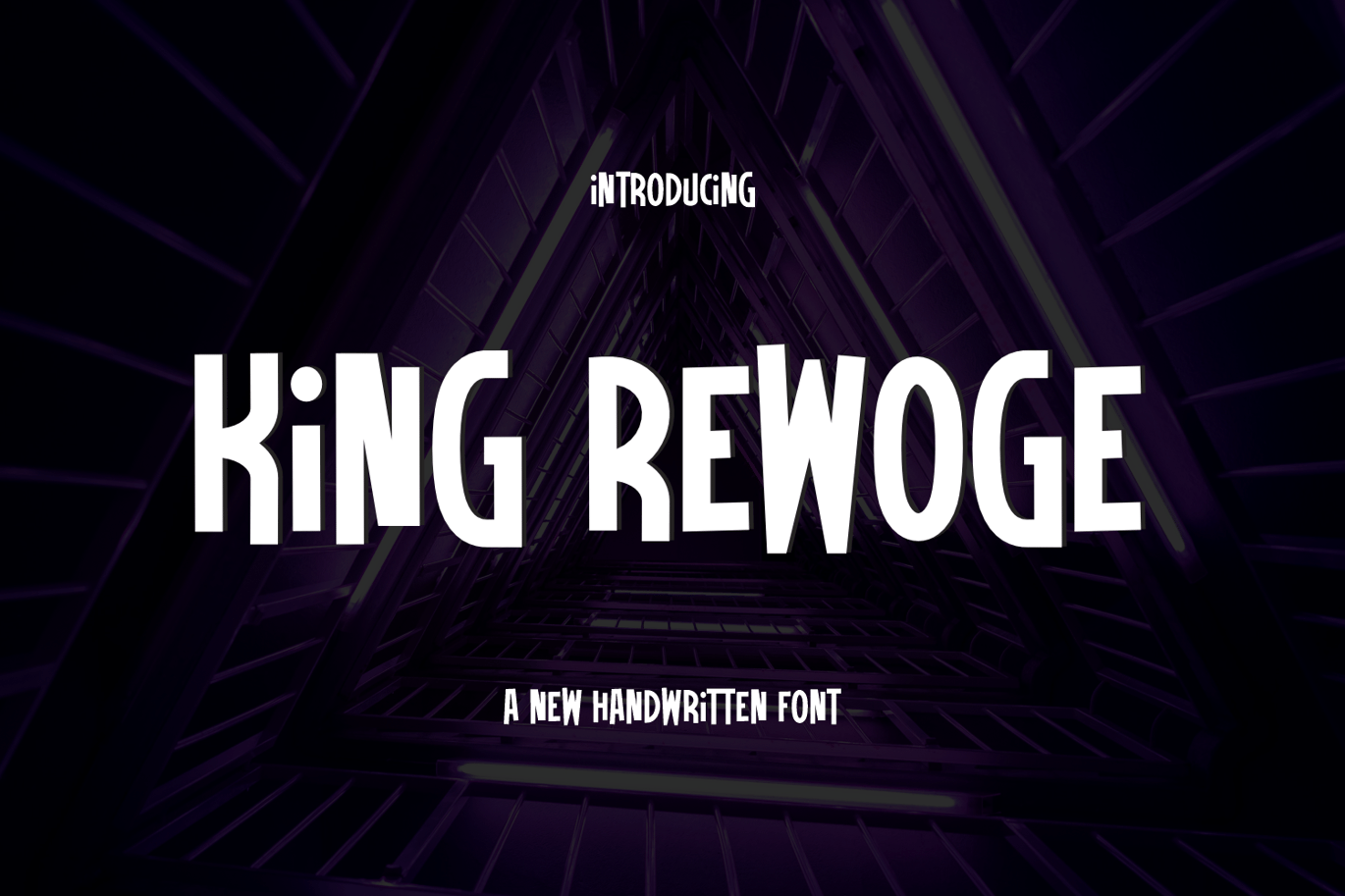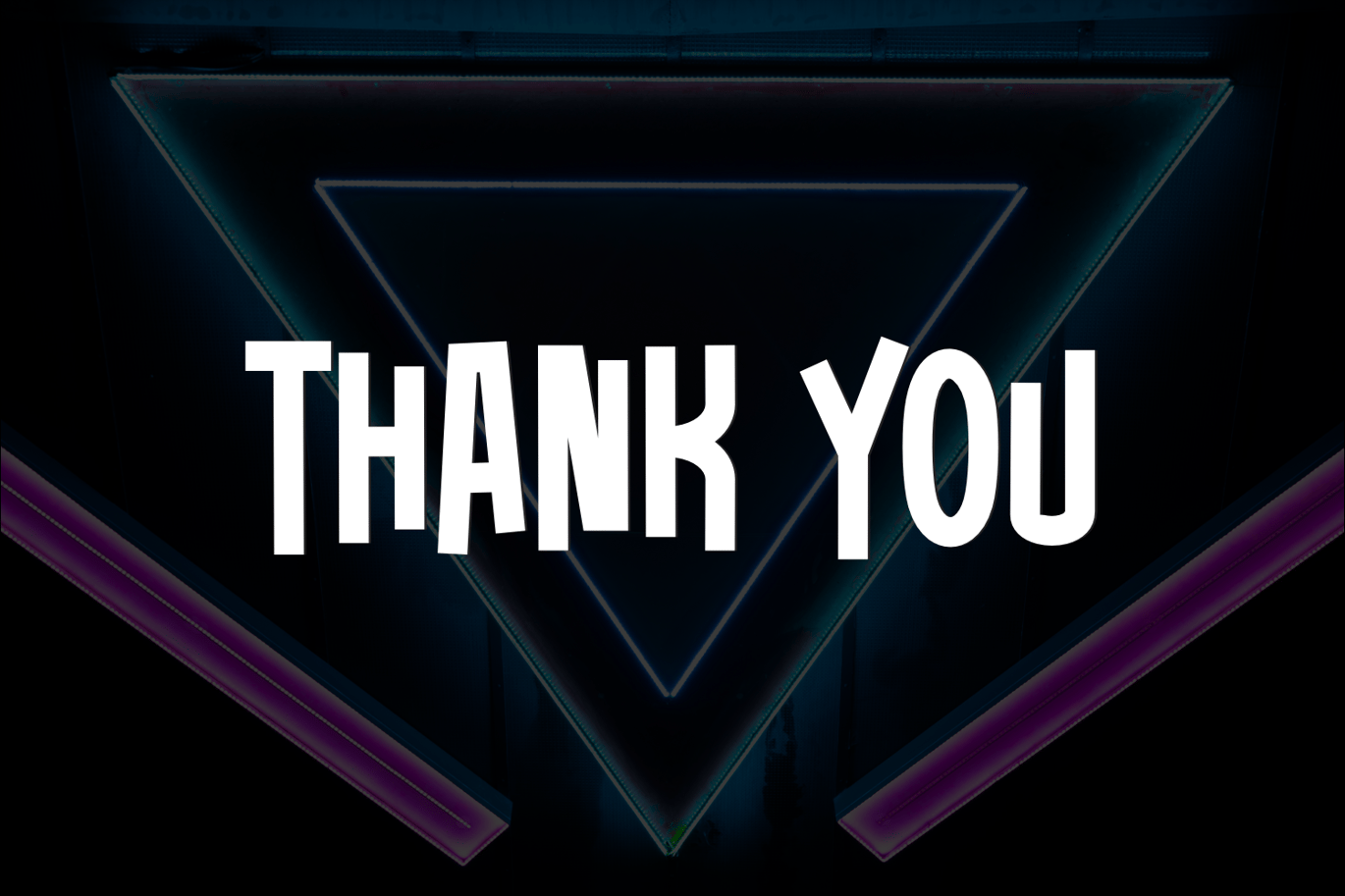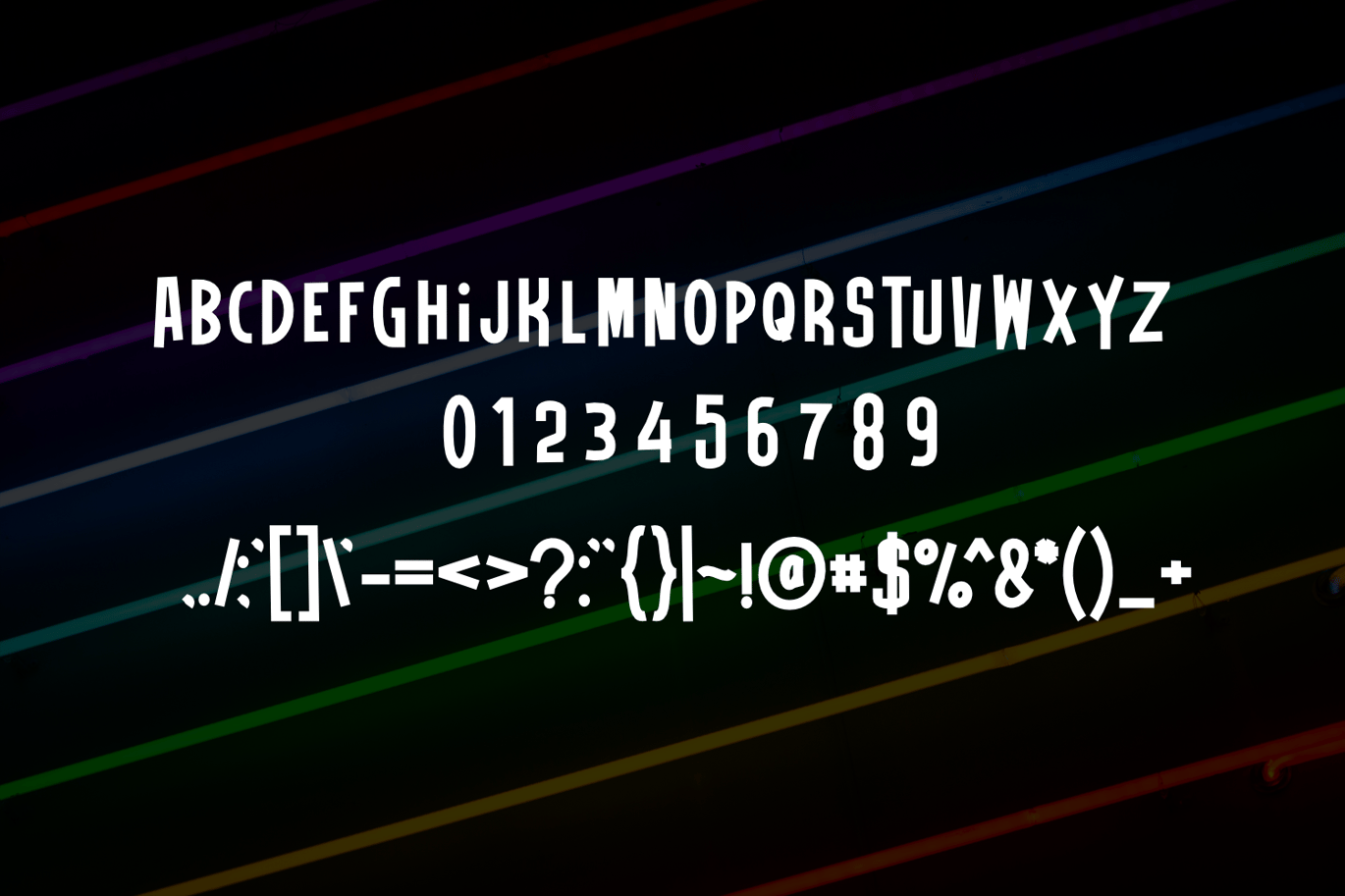
King Rewoge Font
Introducing our new product King Rewoge Font
- Very suitable for flyer, posters, novel, letterhead, or any design requirements that you want to be awesome. ____________________________________________________________________________________________